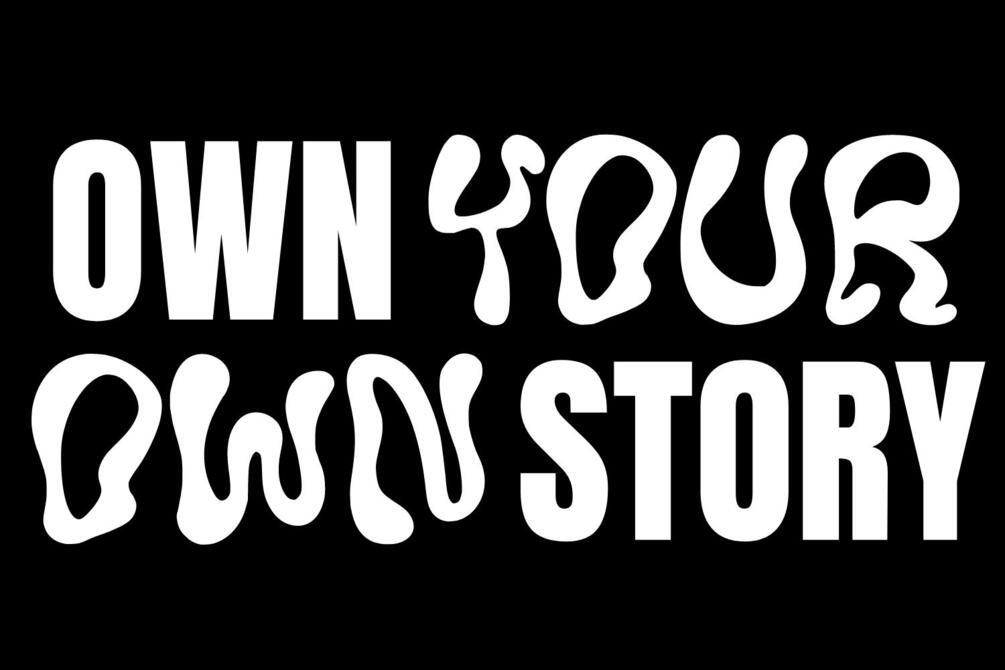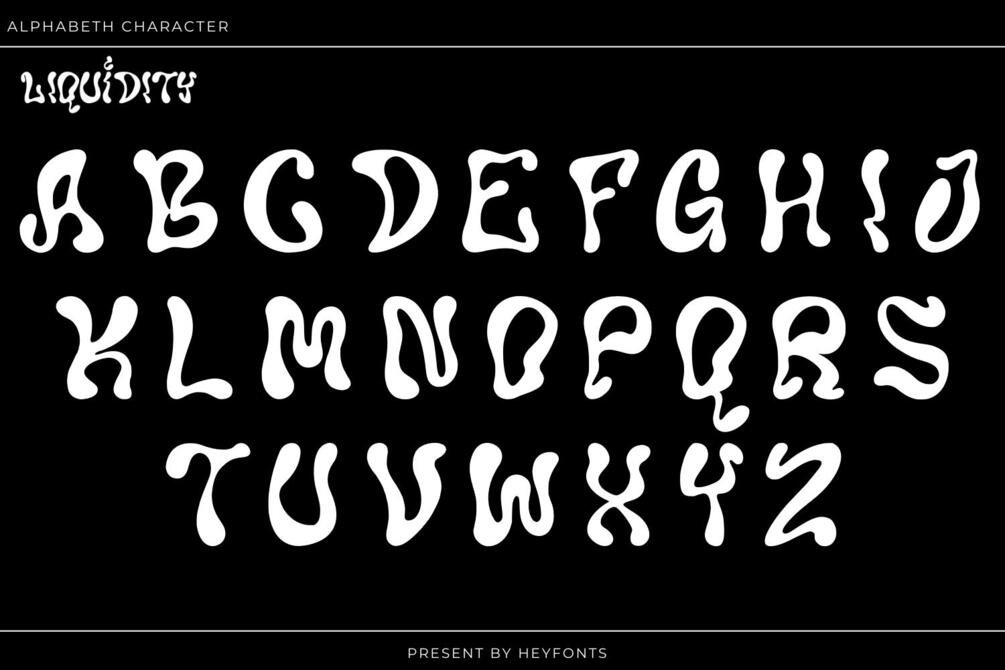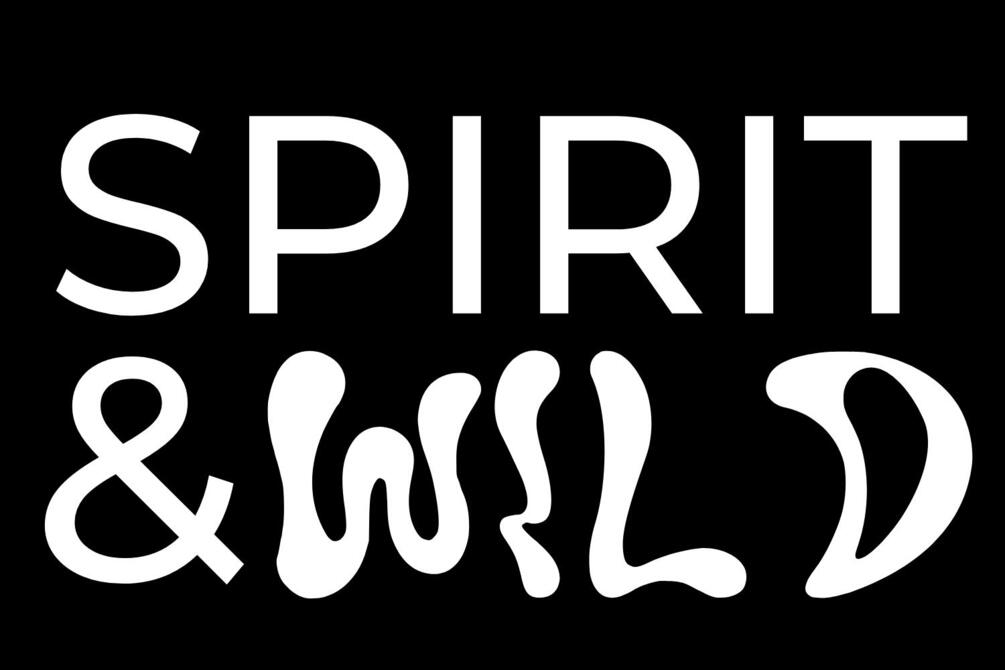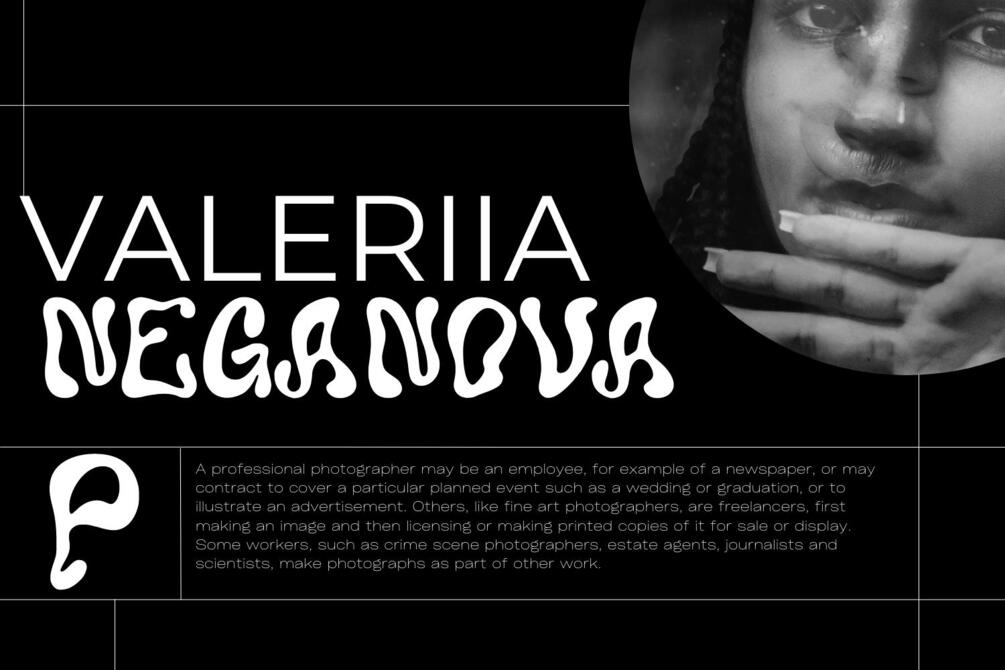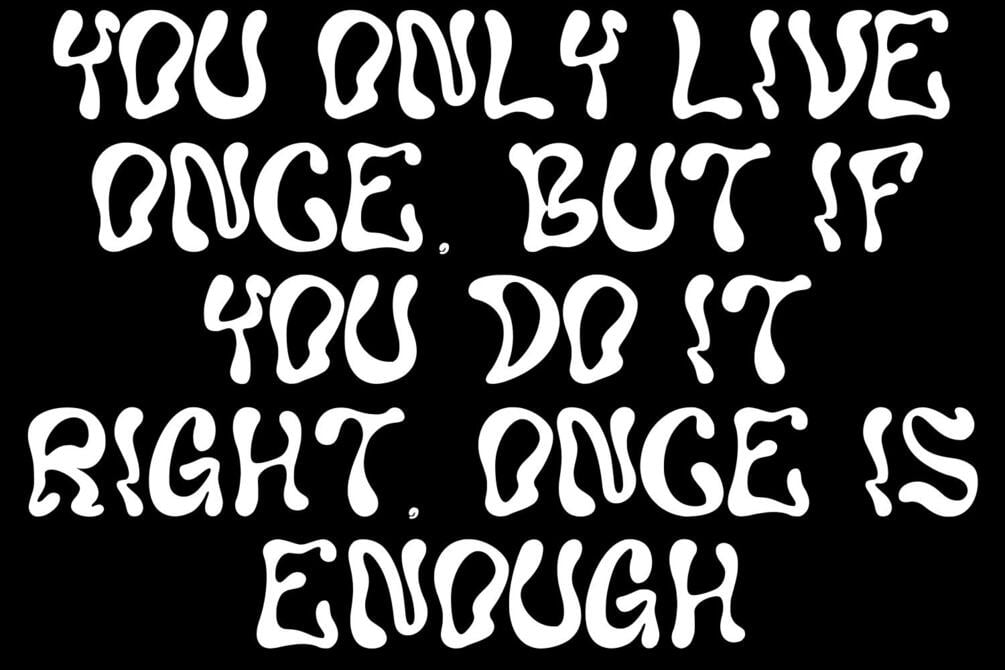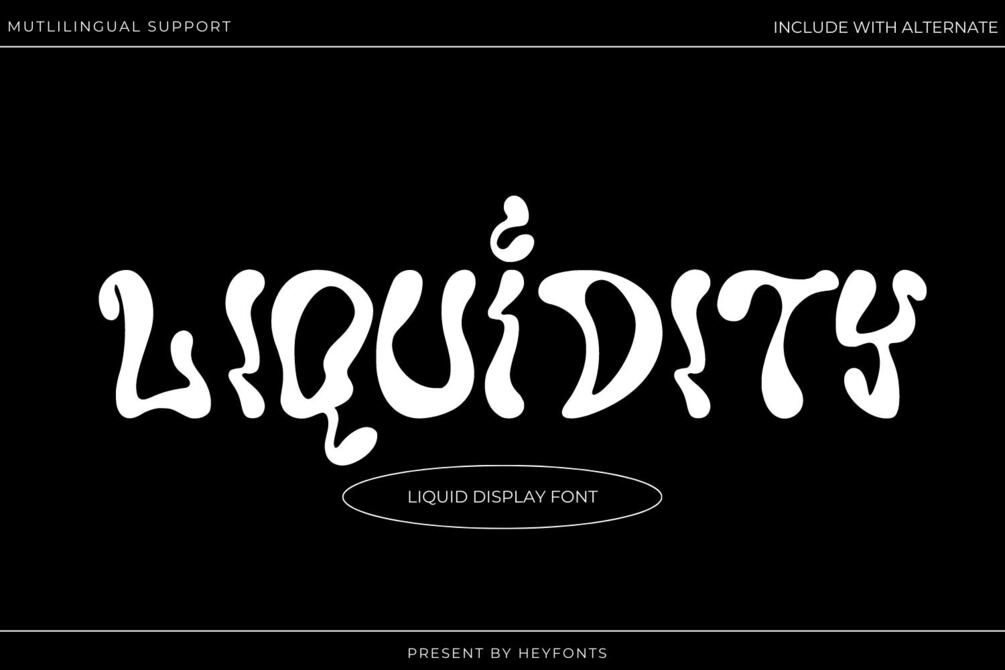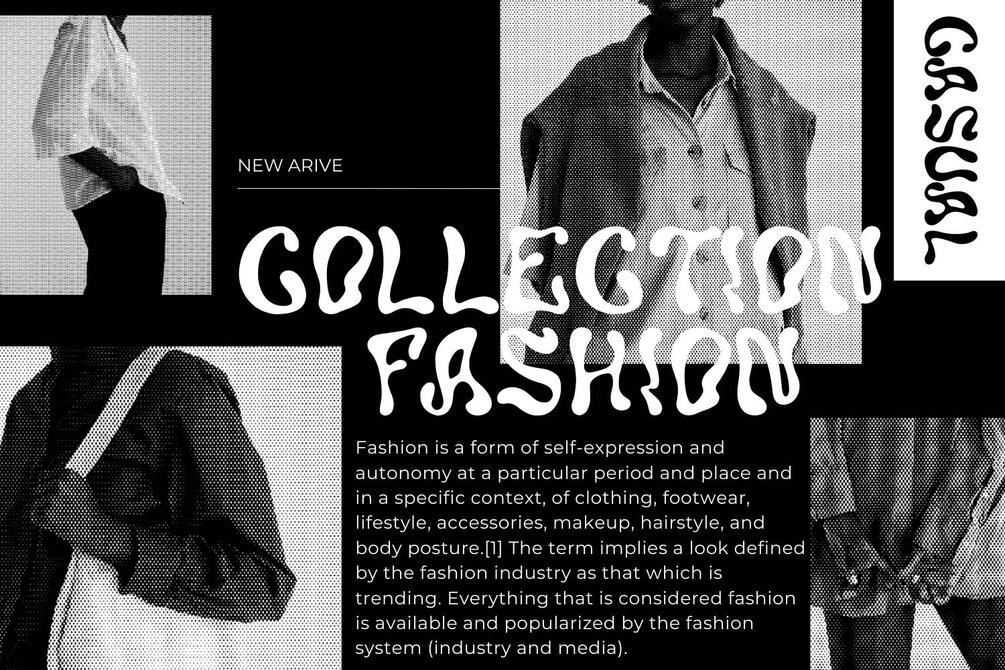
Liquifity - Liquid Display Font
Liquifity IS AN EXPERIMENTAL FONT ADAPTED FROM A COMBINED LIQUID AND GRAFFITI THAT MAKES ITS UNIQUE CHARACTER AS A DISPLAY FONT, THIS FONT IS VERY SUITABLE TO USE AS YOUR PROJECT DESIGN SUCH AS GRAPHIC TEMPLATE OR CLOTHING